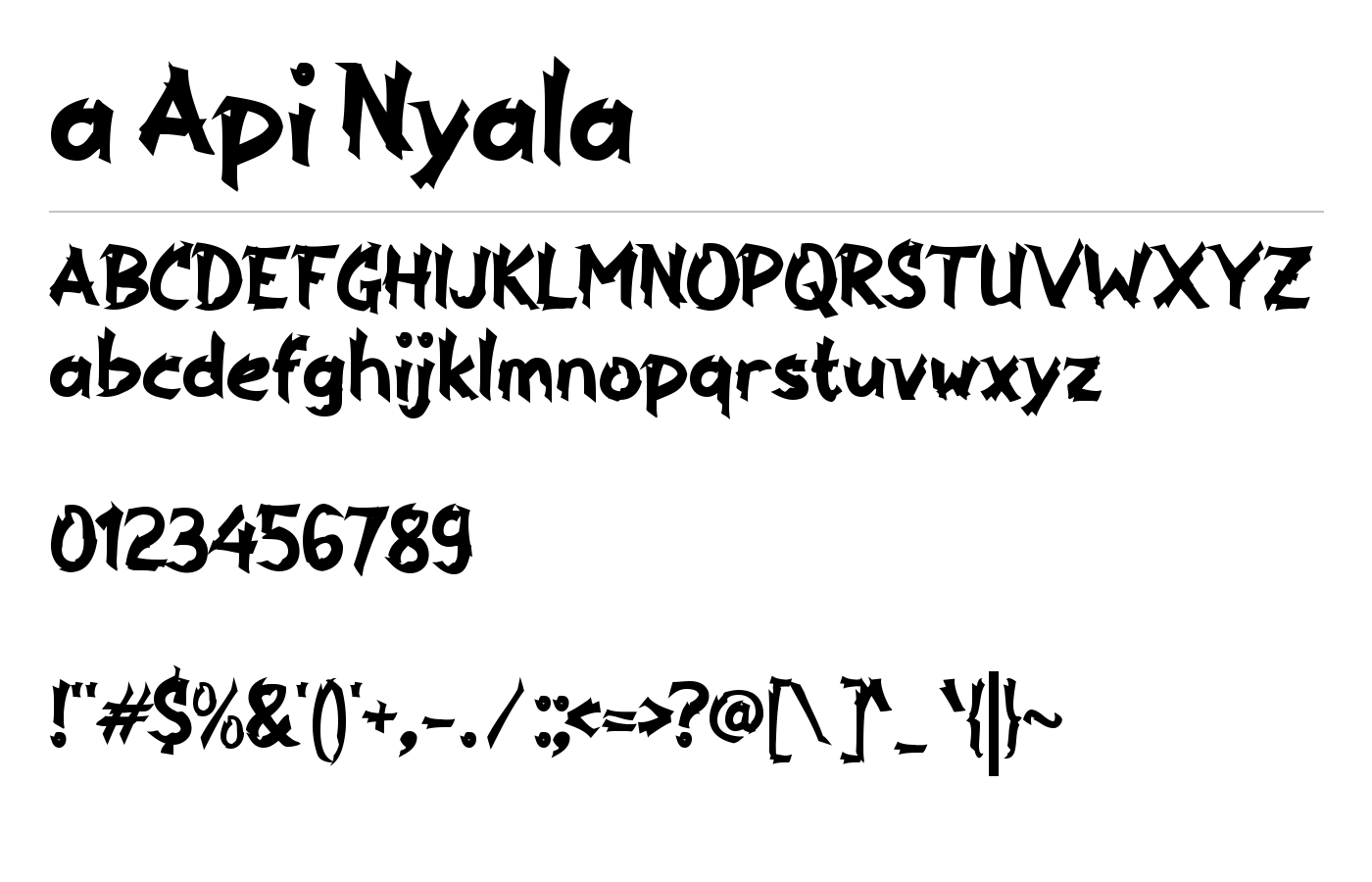
a Api Nyala is a playful and bold display font with jagged, irregular edges that create a dynamic and energetic feel. Its strong, uneven strokes and casual letterforms make it perfect for eye-catching headlines, posters, and creative branding that want to convey a sense of fun and uniqueness. This font works best in expressive designs where personality and impact are key.
a Api Nyala Font
About a Api Nyala Font